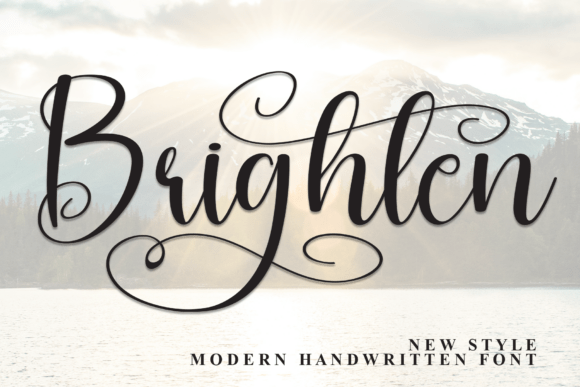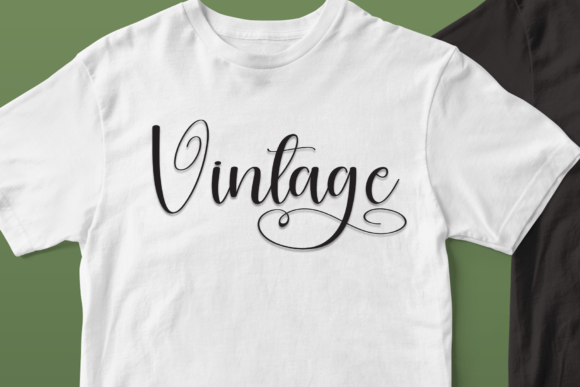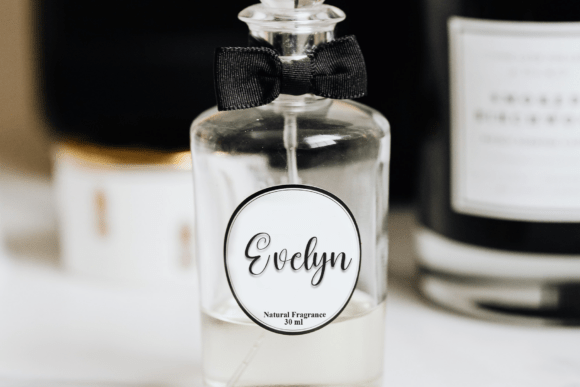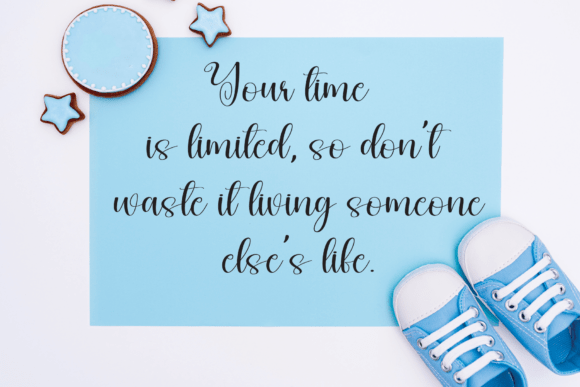
Brighten Font: Elegant Calligraphy Script for Wedding & Social Media Design
About the Brighten Font
Add a touch of class to your work with the Brighten Font, a truly exceptional typeface. Brighten is a flowing and elegant script font that captures the beauty of handwritten calligraphy with a modern twist. Its fluid curves and graceful strokes make it perfect for wedding invitations, branding, social media quotes, and stylish stationery. Whether you’re designing for romance or sophistication, this font delivers charm and personality in every letter.
Brighten’s elegant, yet slightly informal style makes it ideal for projects requiring a touch of sophistication without being overly serious. It excels in branding applications for boutiques, cafes, or beauty brands, and also works well on short-form content like social media posts, invitations, and short headlines. However, its flowing nature makes it less suitable for body text or UI elements where readability is paramount.
Pairing Brighten with a clean sans-serif like Lato or Open Sans for body copy provides a strong contrast and enhances readability. For a more classic feel, a serif like Playfair Display can create a balanced and harmonious combination. Avoid pairing it with other highly decorative scripts, as this can lead to visual clutter.
Brighten’s overall personality is sophisticated yet approachable, conveying a sense of both elegance and approachability. It’s a versatile choice for projects that need a touch of hand-crafted charm.
Brighten Font Usage Examples
Brighten Font Example